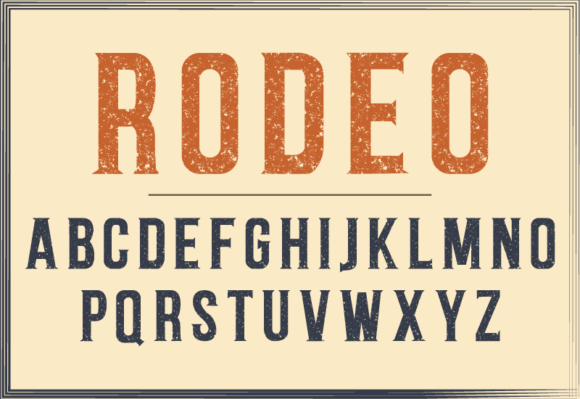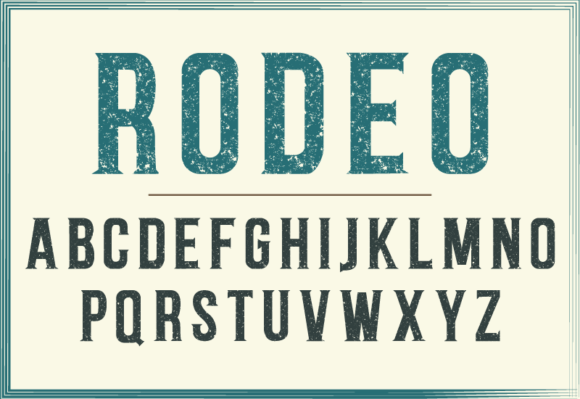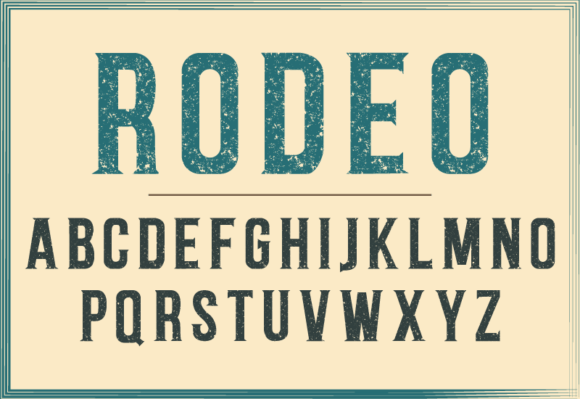
Rodeo Font
About the Rodeo Font
We are excited to introduce Rodeo Font, a must-have typeface for any serious designer. Rodeo is a simple Western-style serif font designed for a clean retro look. With its vintage balanced proportions, this font is perfect for creating a minimalist aesthetic in logos, web design, and branding. You can use this font proudly on any of your projects.
Rodeo’s clean lines and balanced proportions make it ideal for headlines, logos, and short text blocks in branding materials and posters. Its retro aesthetic lends itself well to projects with a vintage or Western theme, but also works effectively for contemporary designs seeking a touch of classic appeal. Avoid using Rodeo for large blocks of body text or UI elements; its serif design and relatively high x-height might compromise readability in smaller sizes or extended passages.
Pairing Rodeo with a clean sans-serif like Montserrat or a geometric sans-serif like Futura creates a strong contrast, modernizing the vintage feel. For a warmer, more traditional look, consider pairing it with a complementary serif like Playfair Display or a script font like Great Vibes, depending on the desired level of formality.
Rodeo projects a confident, subtly nostalgic personality. Its straightforward design is both approachable and refined, making it suitable for brands aiming for a balance of classic style and modern sensibilities.
Rodeo Font Usage Examples
Rodeo Font Example